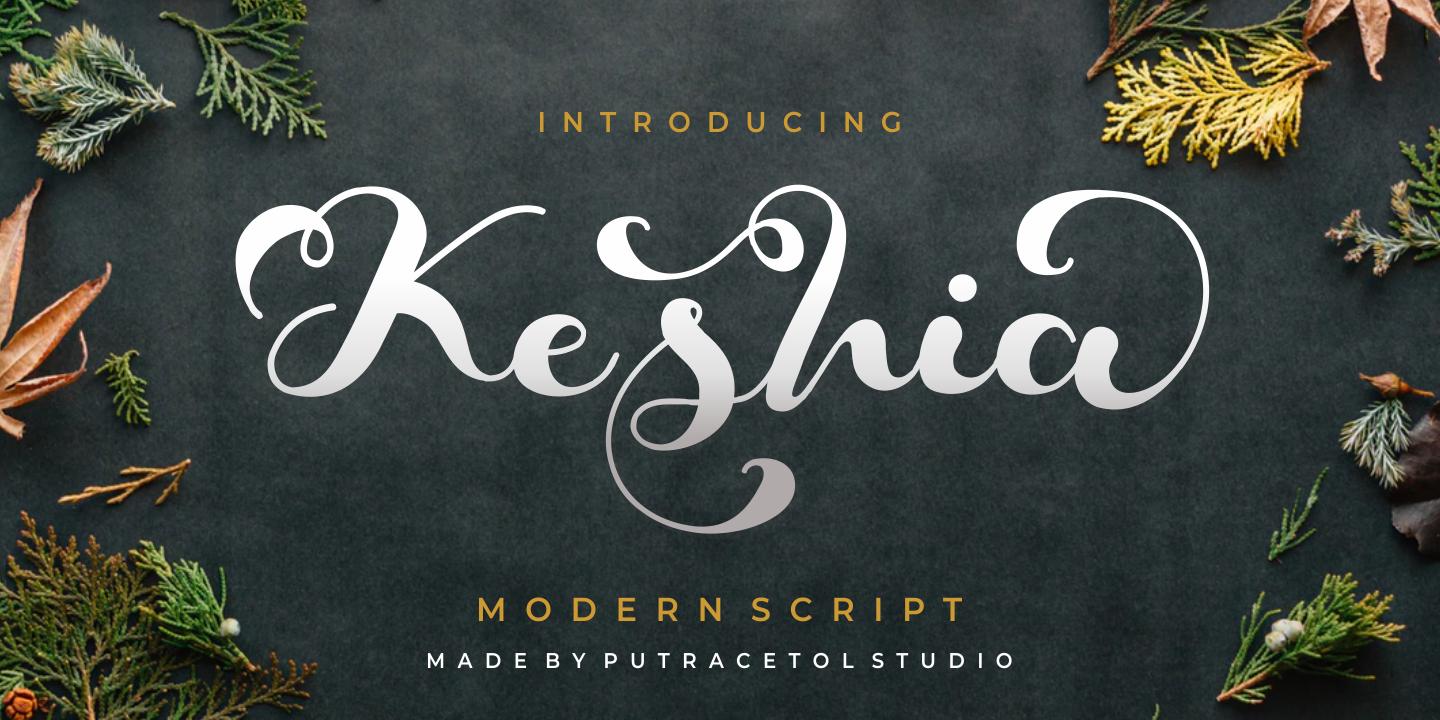
Keshia Font is perfect for modern beauty brands, contemporary fashion magazines, chic boutique signage, stylish lifestyle blogs, trendy social media graphics, sophisticated wellness centers, upscale salon branding, elegant cosmetics packaging, fashionable event invitations, and any projects that need contemporary typography with stylish appeal and modern feminine elegance.
What makes Keshia Font exciting is its perfectly balanced modern femininity that captures contemporary style and confidence with letterforms that embody the sophisticated grace of today's empowered woman. This stylish typeface features clean characteristics with subtle curves that create an atmosphere of modern elegance and confident sophistication, reflecting the dynamic energy of contemporary lifestyle and the refined taste of discerning fashion-forward individuals. The font's modern feminine character makes it perfect for brands seeking to communicate style, confidence, and the contemporary elegance that defines today's sophisticated lifestyle choices.
Keshia Font family includes fashionable style variations featuring thin, light, regular, medium, and bold weights. The font family also offers elegant italic versions with enhanced sophistication, along with condensed variants that maintain style in space-efficient applications. Special features include modern ornaments, fashion symbols, and contemporary decorative elements that enhance the stylish atmosphere of luxury lifestyle design applications and trendy branding systems.
Step into style with Keshia Font Free Download and elevate your brand with typography that walks the runway of contemporary design with confidence and modern sophistication. This fashionable typeface delivers runway-ready performance across all stylish applications, ensuring your message resonates with the contemporary elegance that defines today's fashion-forward audiences. Download Keshia Font today and dress your designs for success with typography that celebrates modern feminine power, creating stylish connections with audiences who appreciate the perfect balance of contemporary sophistication and timeless elegance in today's fast-paced fashion landscape.